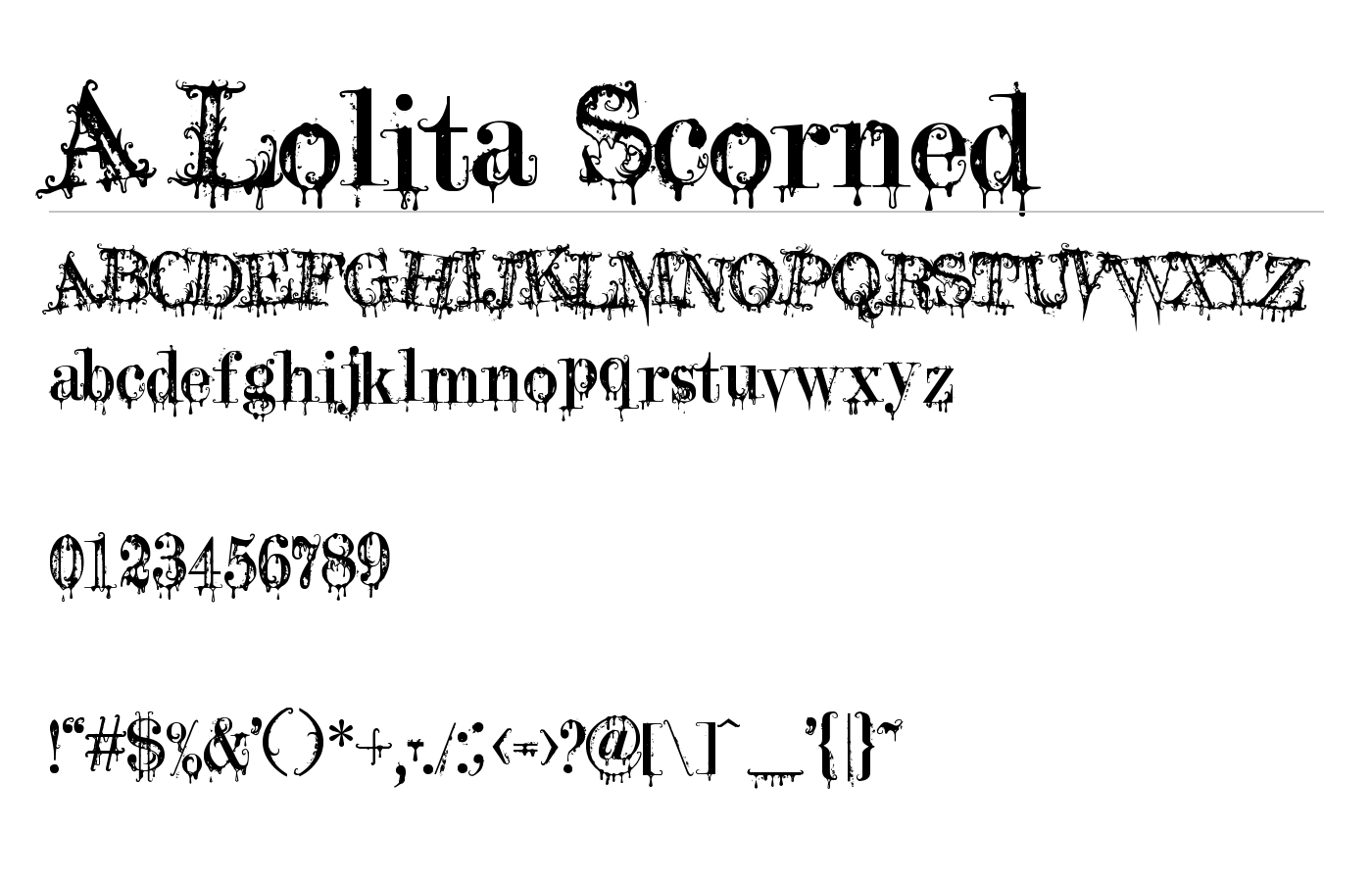
A Lolita Scorned is a decorative serif font characterized by its dripping, distressed design that lends a spooky, gothic vibe. It features high contrast strokes with intricate, irregular edges that create a haunting, eerie effect, making it perfect for horror-themed projects, Halloween designs, or edgy, dramatic branding. This font works best in display sizes where its unique texture can stand out, adding a chilling and artistic flair to headlines, posters, and special event graphics.
A Lolita Scorned Font